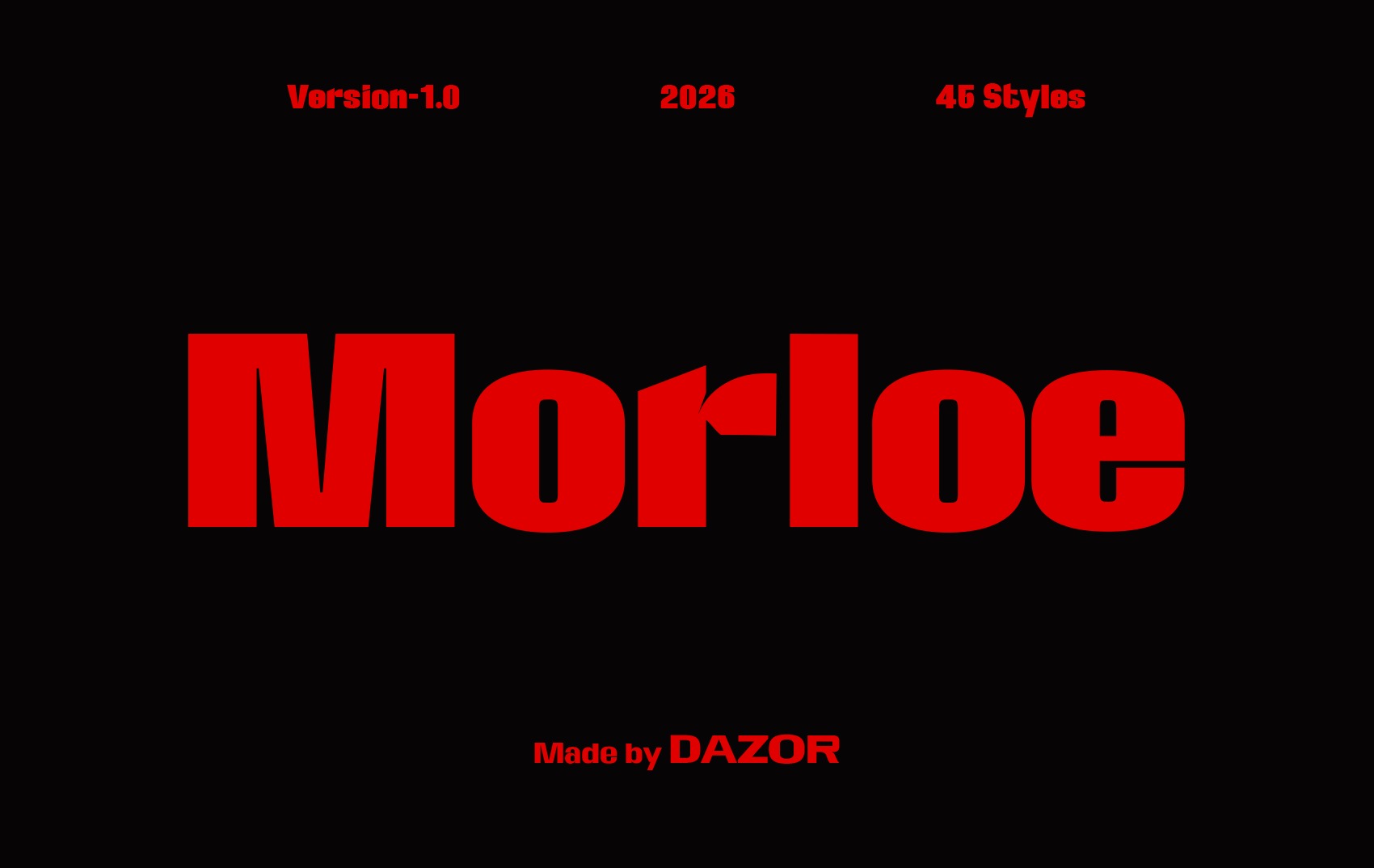
Morloe – Bold Sans Serif Font
Morloe – Bold Sans Serif Font brings a balanced structure and contemporary look, making it suitable for both digital and print design. Morloe is a font created from tradition and imbued with the spirit of risk and adventure.
It is inspired by criminal cult movies and Westerns, full of bright and playful contrasts, yet there are no limits to its use. Morceli will perfectly blend in any context.
Morloe is a unique tool designed to convey confidence, not a basic sans serif.
Even with stylisation and saturated character, this font will be perfect for eye-catching headlines and mundane long paragraphs.
There are 45 different styles, from condensed Thin to Wide Black letters filling the entire page. Looks great on everything from ad banners to book covers.